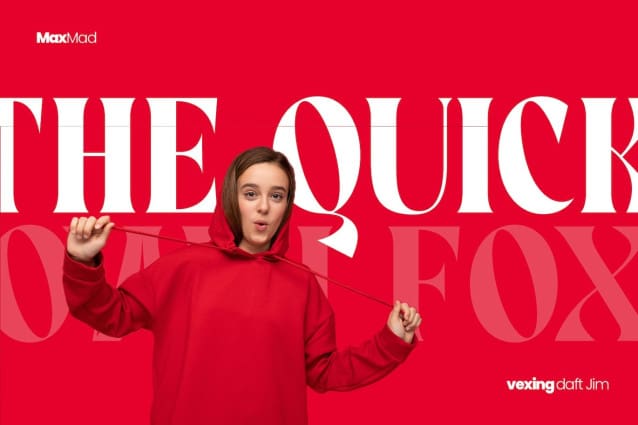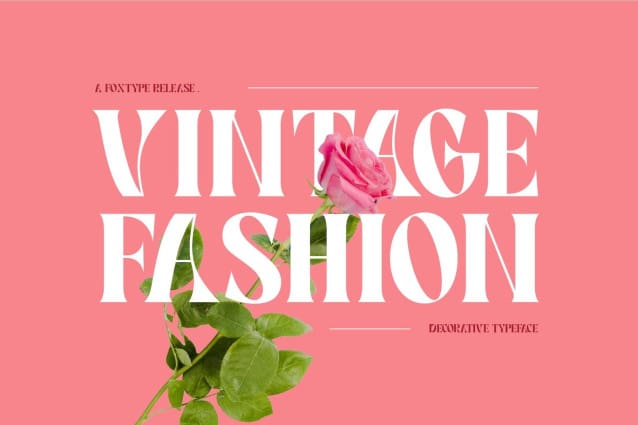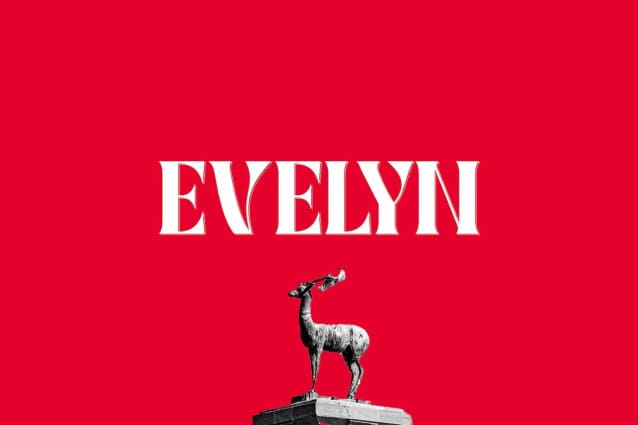
Evelyn Font
Evelyn Font, was created with the aim of attracting audiences to your brand. The finer details of this font are created methodically and mathematically. Evelyn is created with all the tasks of a Business and can also be used in various projects including for branding, logos, titles, headlines, posters, displays, screens, digital ads, etc.